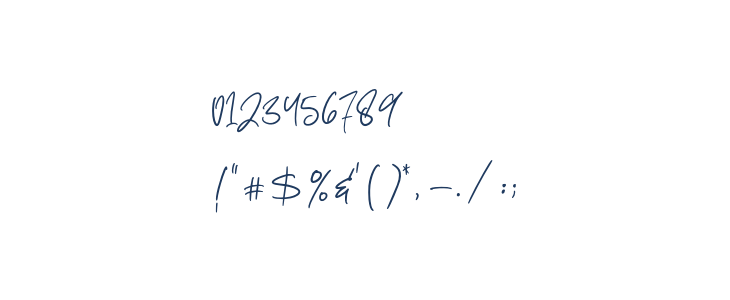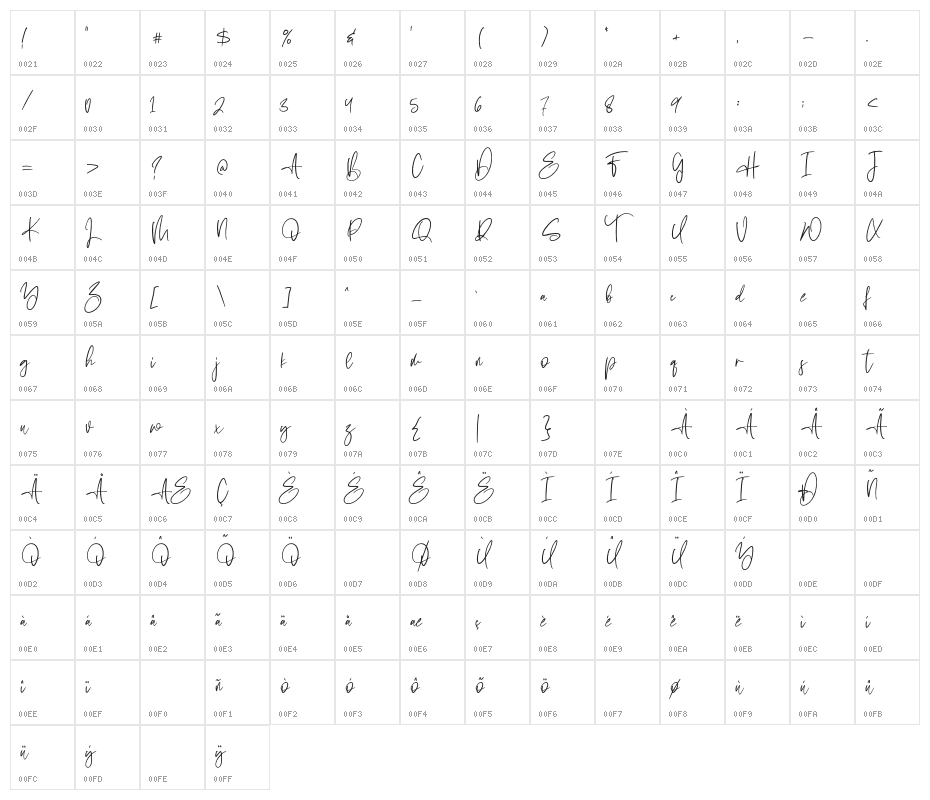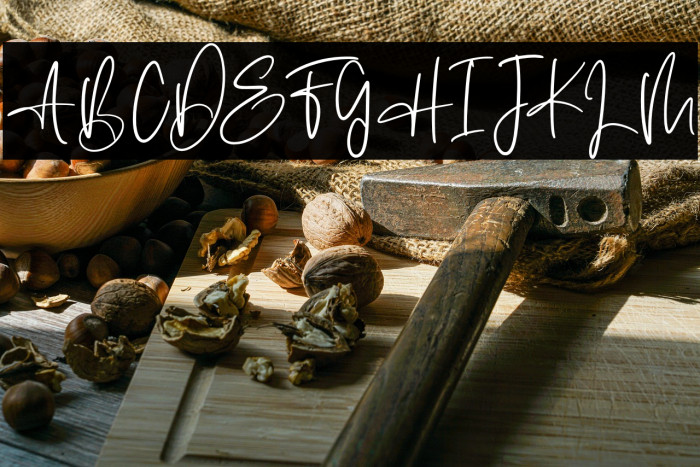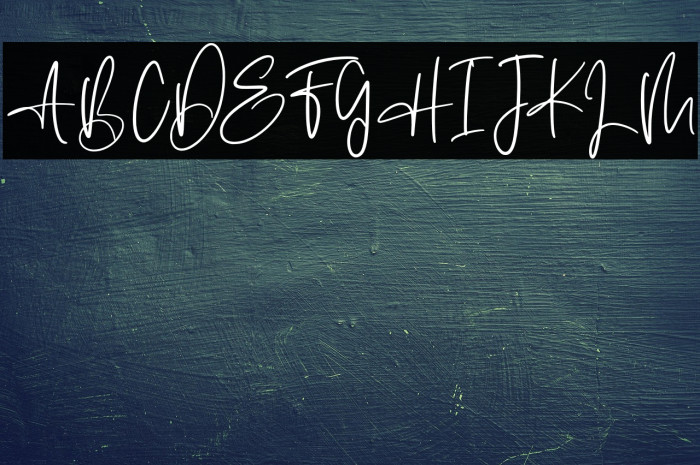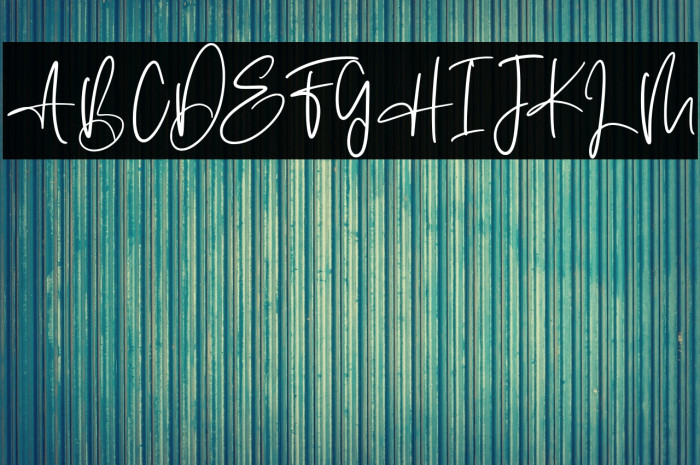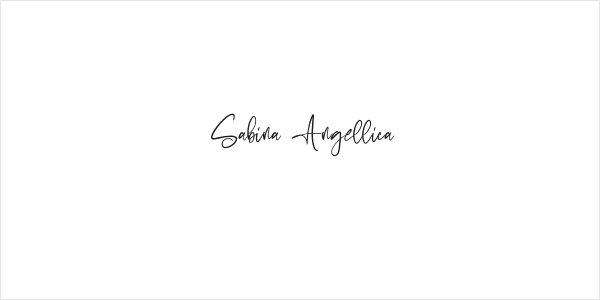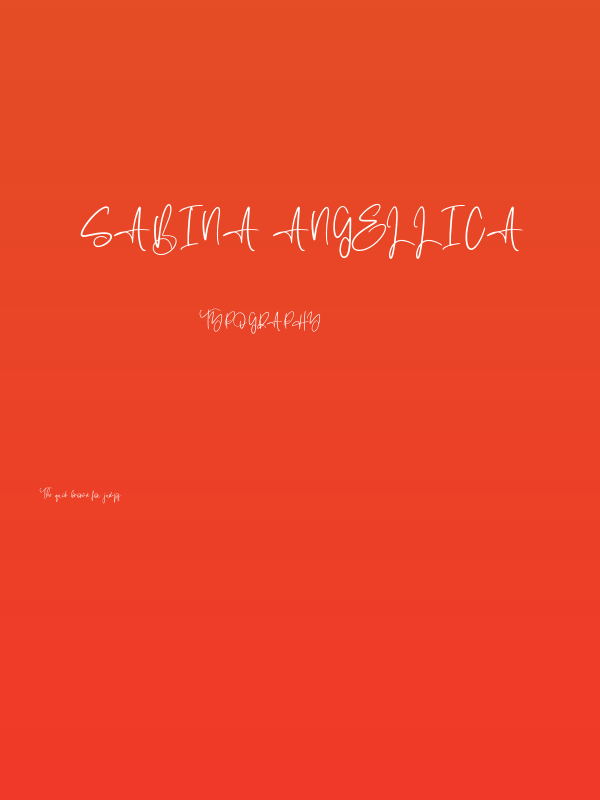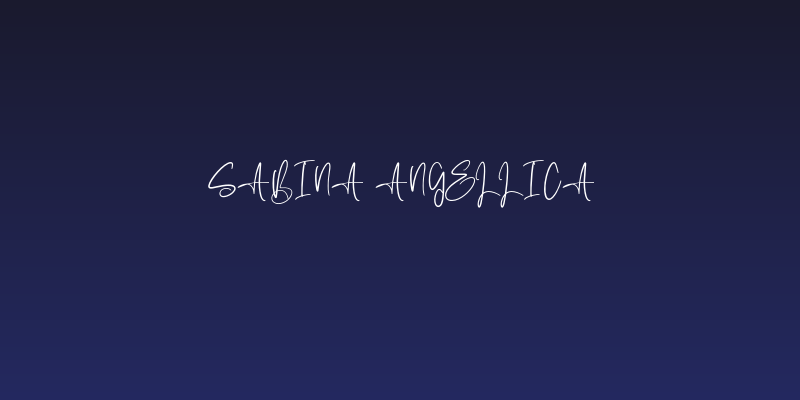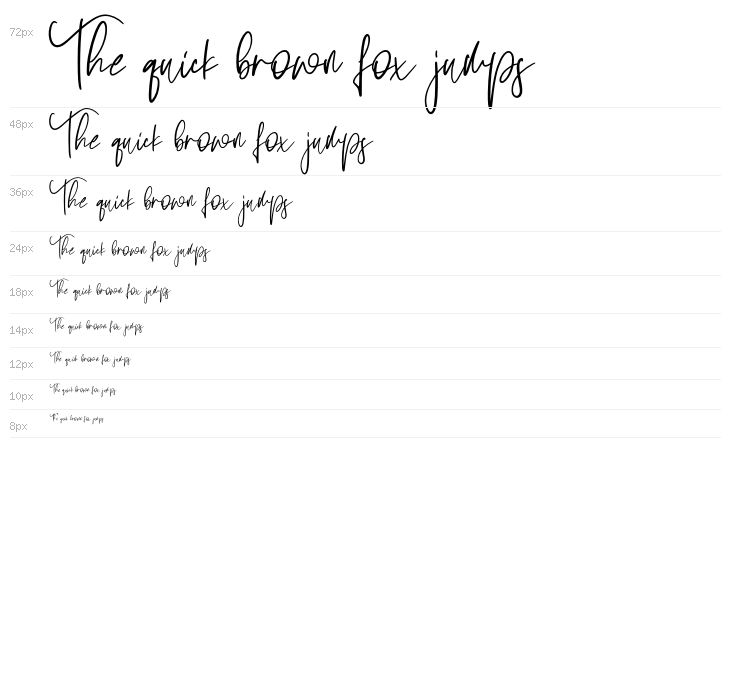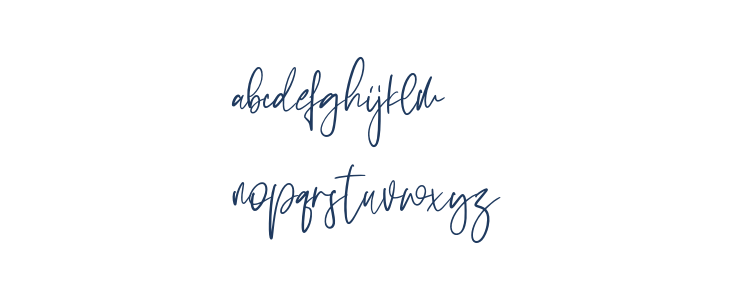
Sabina Angellica Font
Sabina Angellica Description
This font exhibits a lively and flowing handwritten style, characterized by its elegant and fluid strokes. The uppercase letters are bold and expressive, with a distinct flair that adds personality to each character. The lowercase letters maintain a consistent flow, enhancing readability while preserving the font's artistic nature. Numbers and special characters are crafted with the same attention to detail, ensuring a cohesive look across all text. The overall design is both sophisticated and approachable, making it suitable for a variety of creative applications.
| Use Case | Logos, Invitations, Social Media |
| Proposed Projects | Ideal for wedding invitations, greeting cards, branding projects, and social media graphics. |